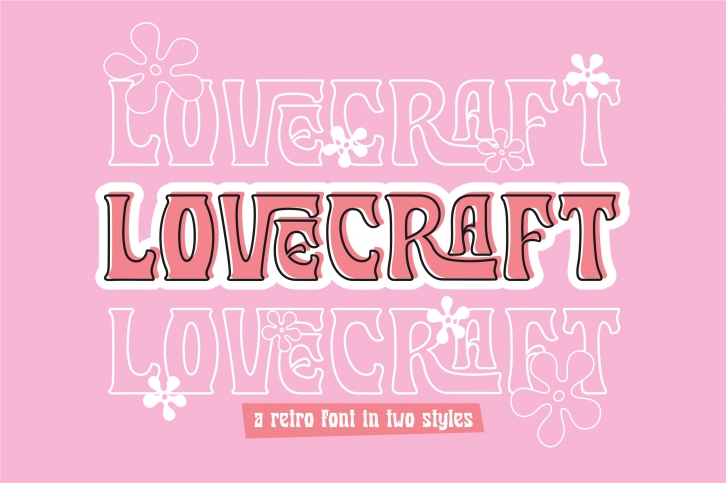
Lovecraft is a retro display font featuring a regular solid and an outline version.
Lovecraft is perfect for branding, logos, social media quotes, stickers, posters, vintage designs, wall art, and more!